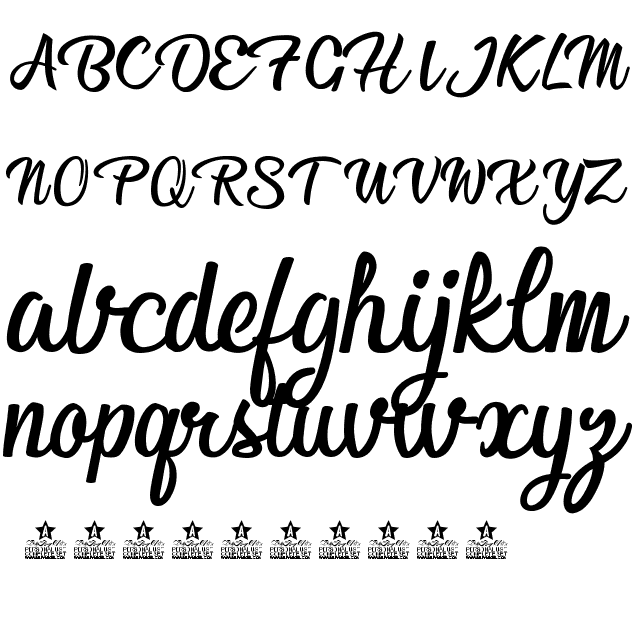
Afternoon in Stereo font
Afternoon in Stereo font is a top-quality Calligraphy font and Script font constructed and published on February 20, 2019, by Billy Argel.
Afternoon in Stereo font is a vibrant and lighthearted new font that will liven up your works and inspire you to create something noteworthy. This Font is appropriate for use in printing, icons, articles, presentations, advertising, and other marketing projects. Furthermore, the Font is ideal for any logo creation requirements. The Font Afternoon in Stereo also is utilized in a creative writing project for its beautiful calligraphy vibes.